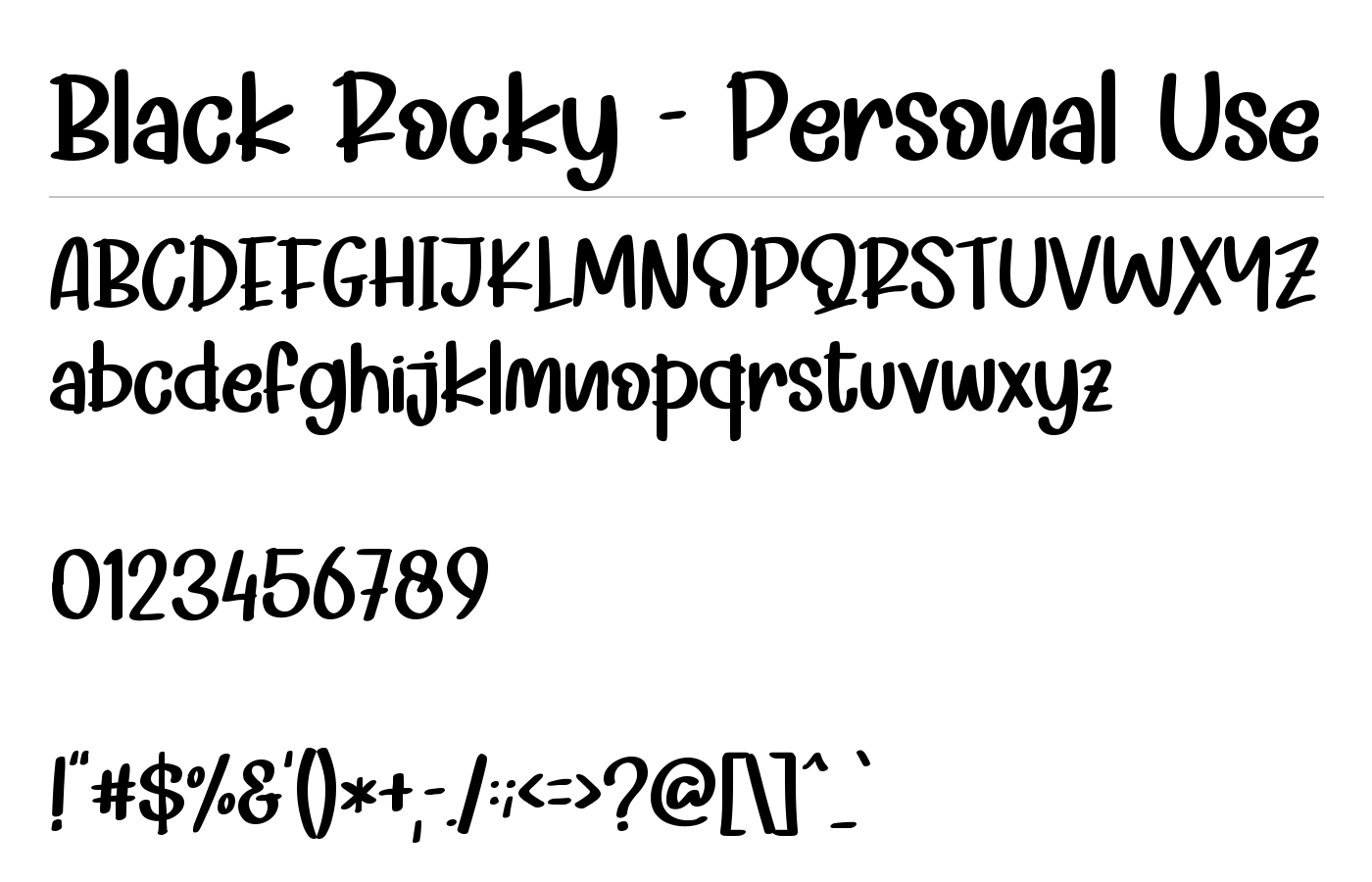
Black Rocky is a casual, playful handwritten sans serif font with a lively, informal feel. Its rounded, slightly uneven letterforms and moderate stroke contrast give it a friendly and approachable vibe, making it ideal for creative projects, children’s materials, and quirky branding that seeks a personal touch. This font works best in headlines, posters, and packaging where a fun, energetic personality is desired.
Black Rocky - Personal Use Font
About Black Rocky - Personal Use Font